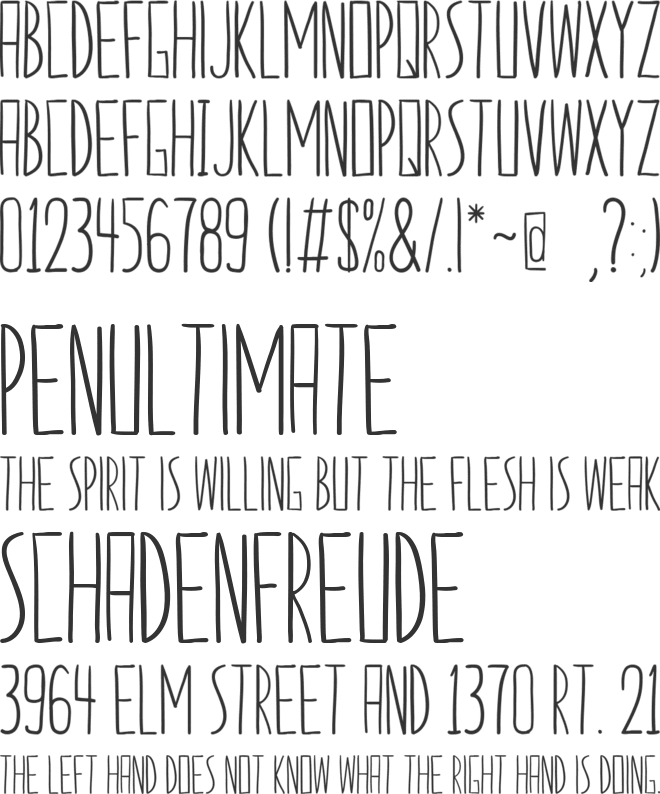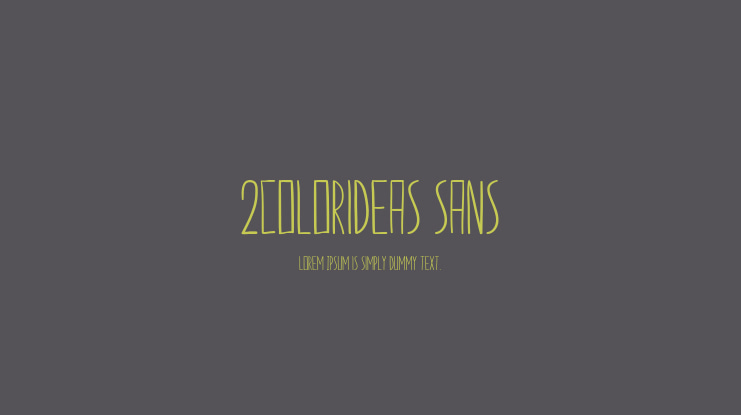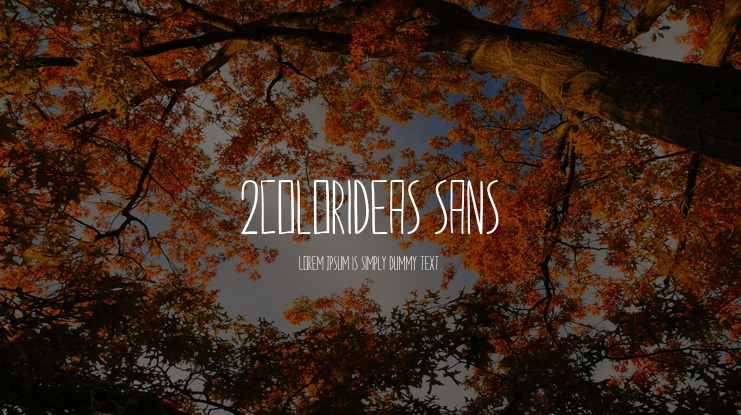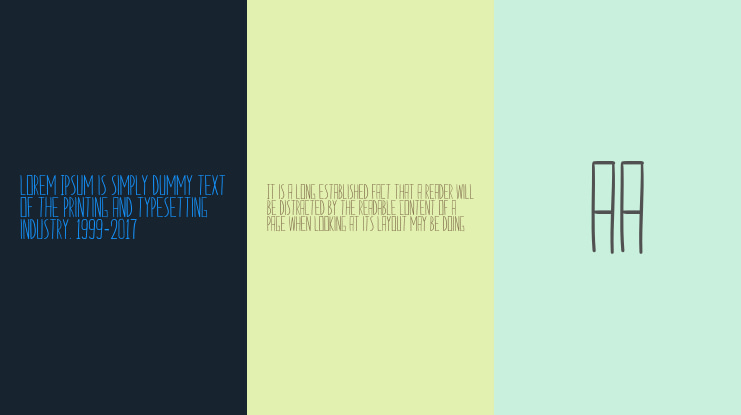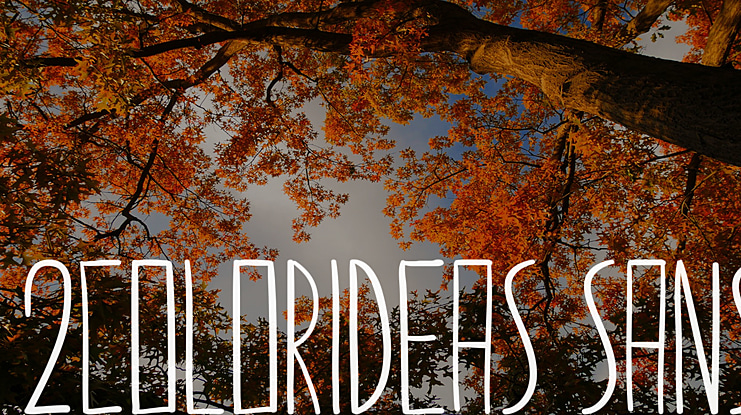
2colorideas sans Font
Kimberly Geswein
This is the typeface I draw for my tumblr. It is composed by illustrations made with only 2 colors. There's a new post everyday. You can check it out: http://2colorideas.tumblr.com/ It is just for some fun and inspiration.